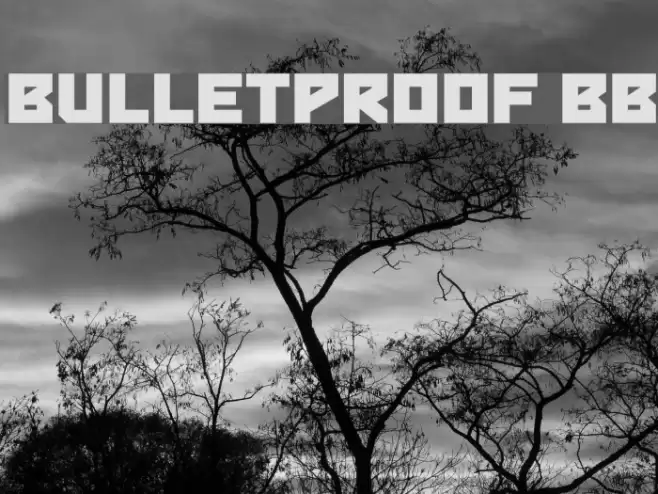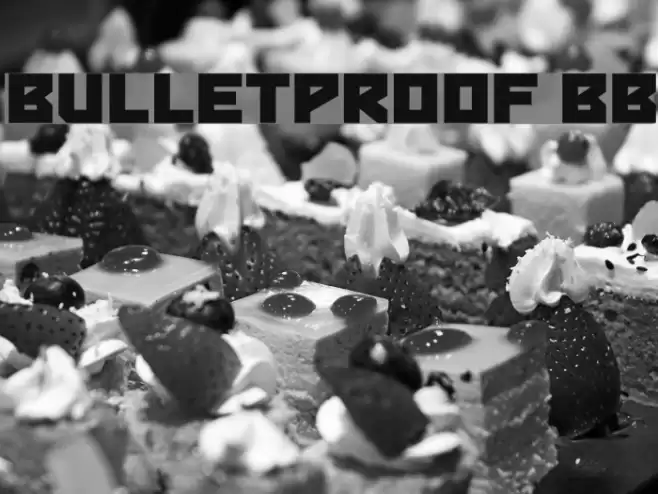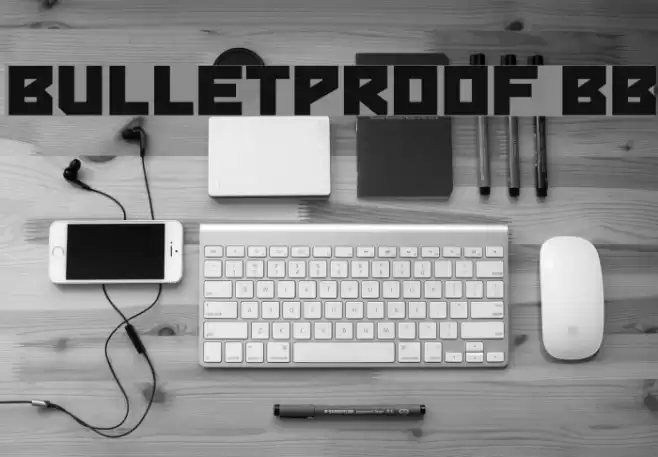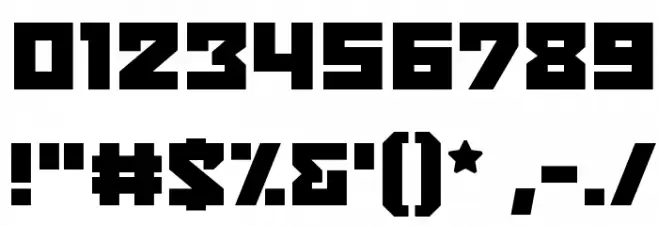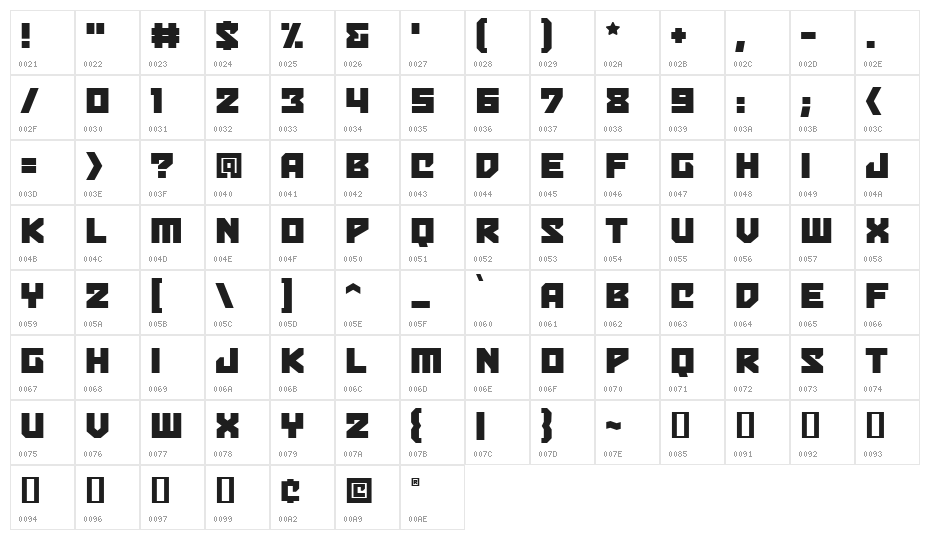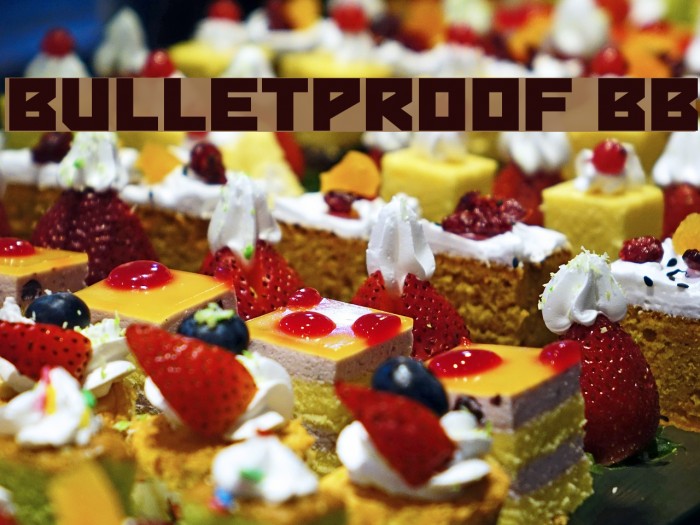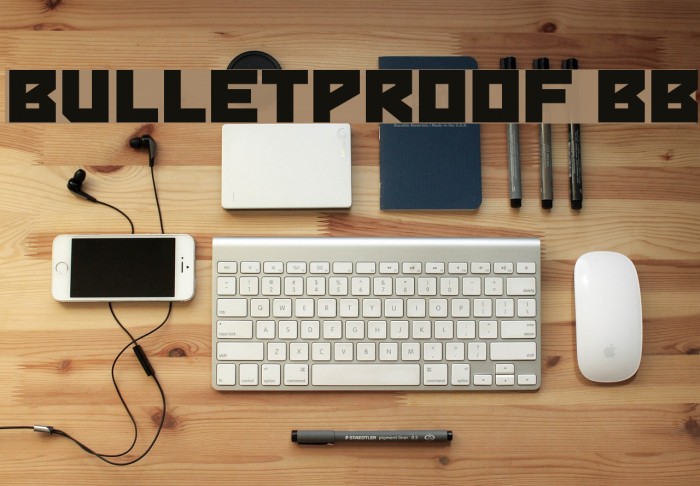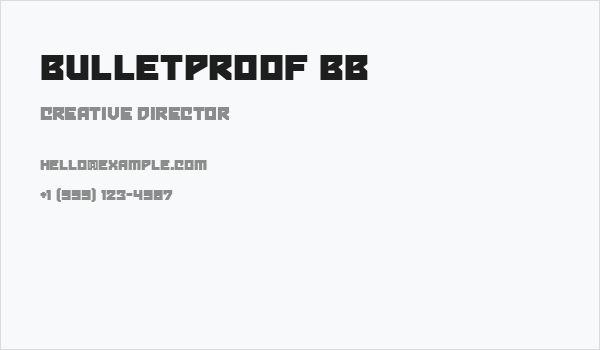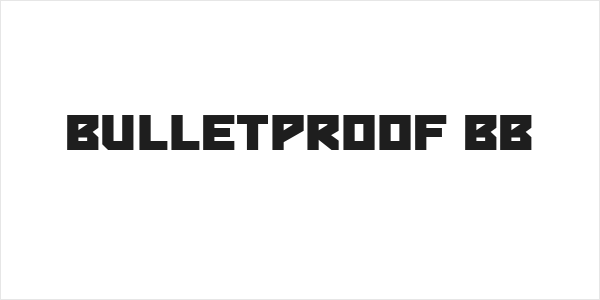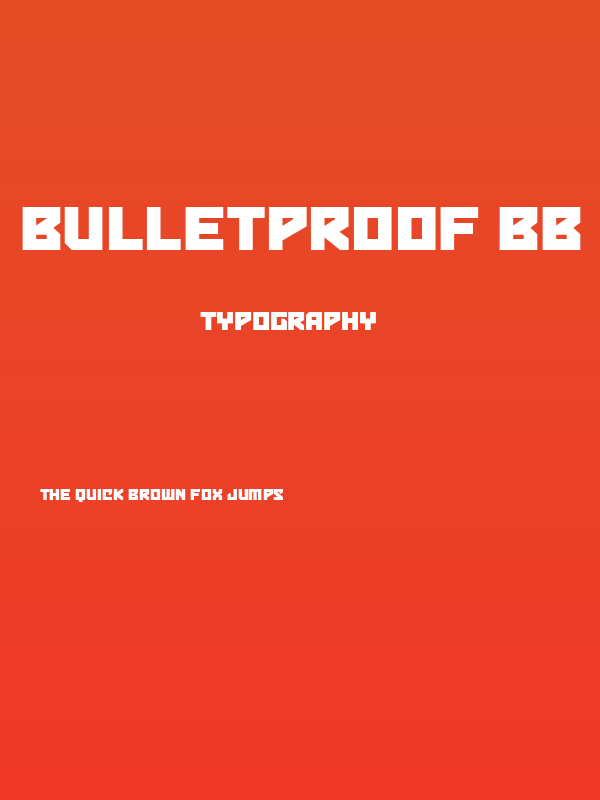
Bulletproof BB Font
Bulletproof BB Description
This font features a bold, geometric design with sharp angles and a blocky appearance. The characters are uniformly thick, giving it a strong and impactful presence. The uppercase letters are particularly striking, with a consistent height and width that enhances readability. The numbers and special characters maintain the same bold style, ensuring a cohesive look across all text elements. This font's design is reminiscent of industrial or military aesthetics, making it ideal for projects that require a robust and commanding visual impact.
A bold, geometric font with sharp angles and a blocky, impactful design from Uncategorized fonts.
- Proposed Projects: Ideal for posters, logos, video game graphics, and any project needing a strong, industrial look.